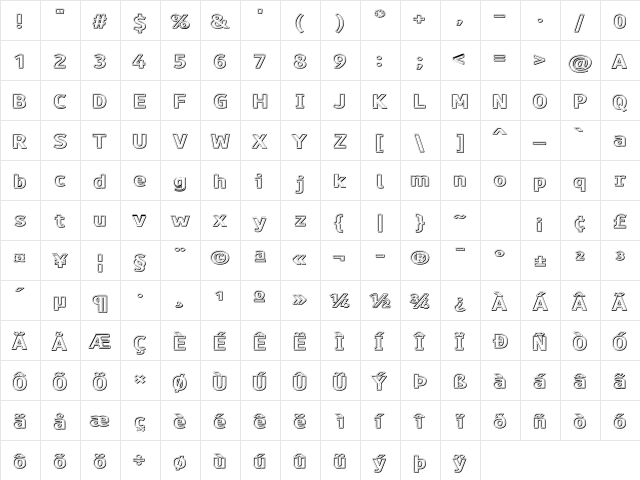
Paneuropa Crash barrier Black
| Foundry | Peter Wiegel |
| Designer | Peter Wiegel |
Design Context for Paneuropa Crash barrier Typeface
Paneuropa Crash barrier offers clean, dependable letterforms without strong stylistic allegiance, making it a practical choice for designers who need flexibility.